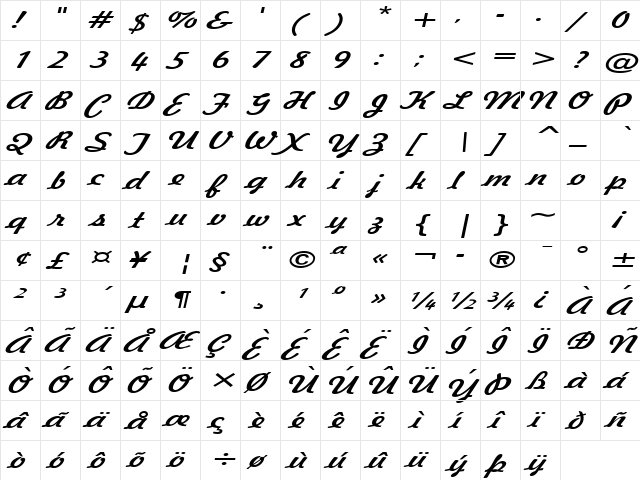
Jott 43 Extended Italic
Design Context for Jott 43 Extended Typeface
Jott 43 Extended is a composed and adaptable typeface that performs quietly and consistently across a wide range of design contexts. The slanted form adds forward momentum and visual energy.